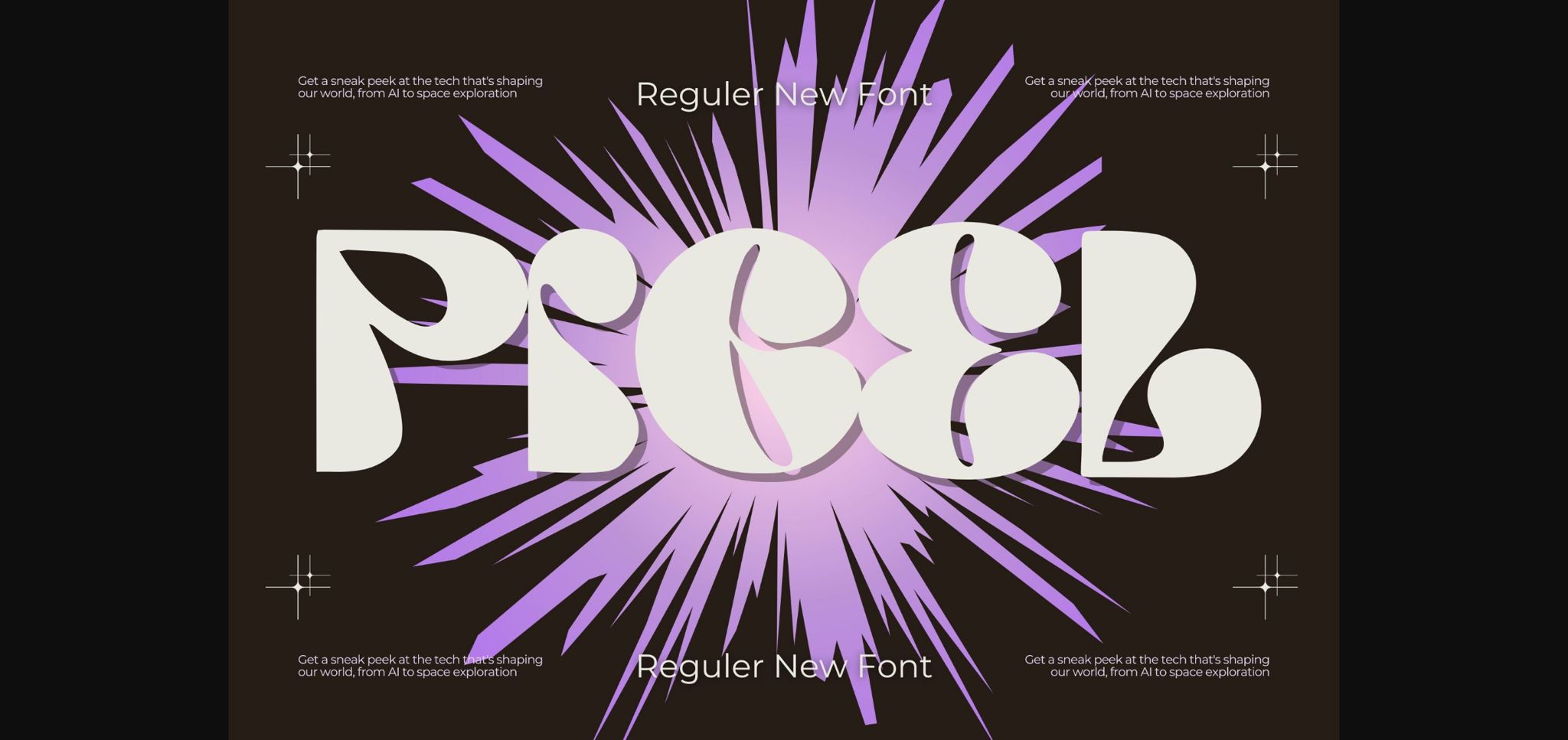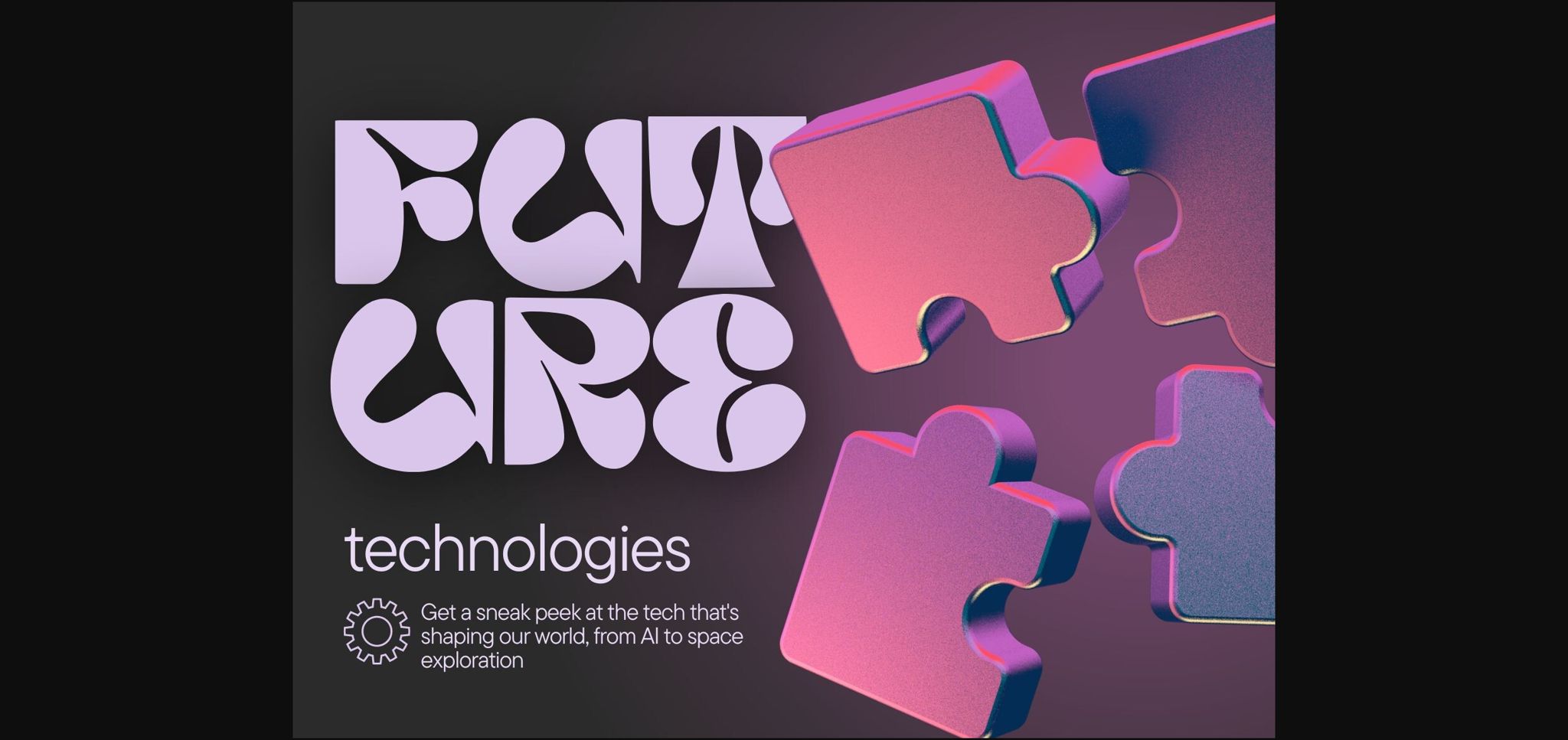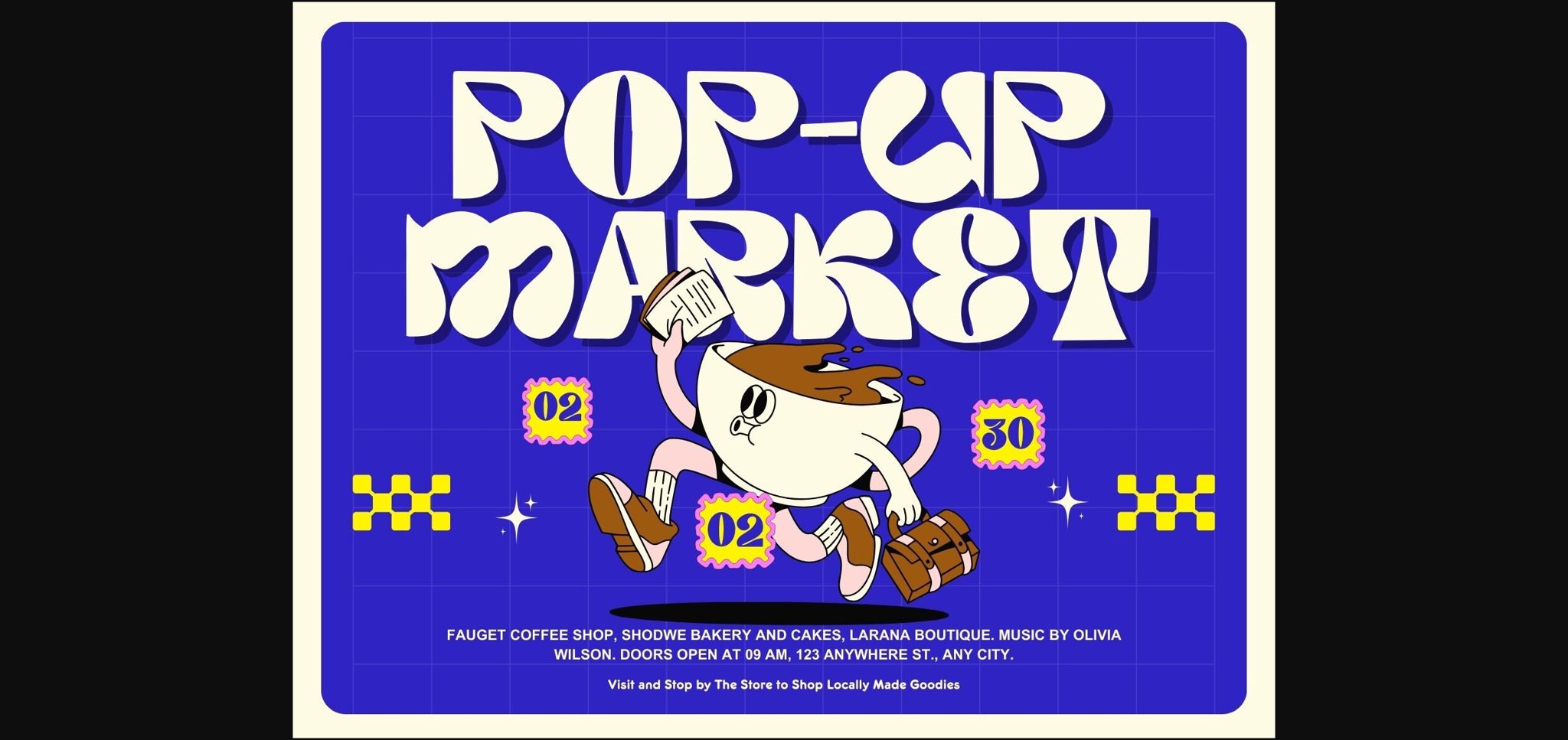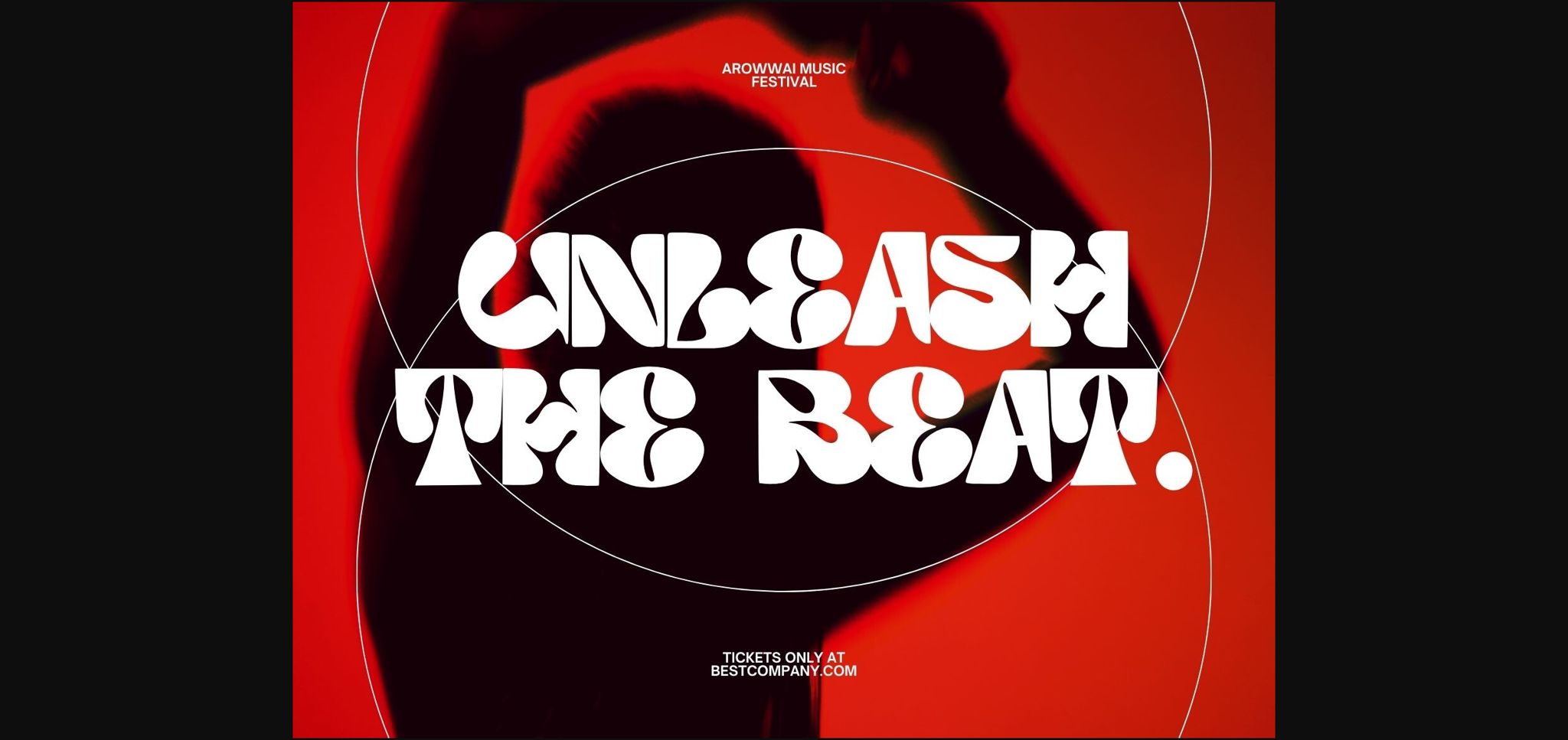
About Pigel Font
Pigel is a cute and friendly display font that brings a playful touch to your designs. With rounded letterforms and a welcoming demeanor, it exudes approachability and warmth. Ideal for projects requiring a friendly and modern aesthetic, Pigel adds a delightful and charming quality to your creative expressions.